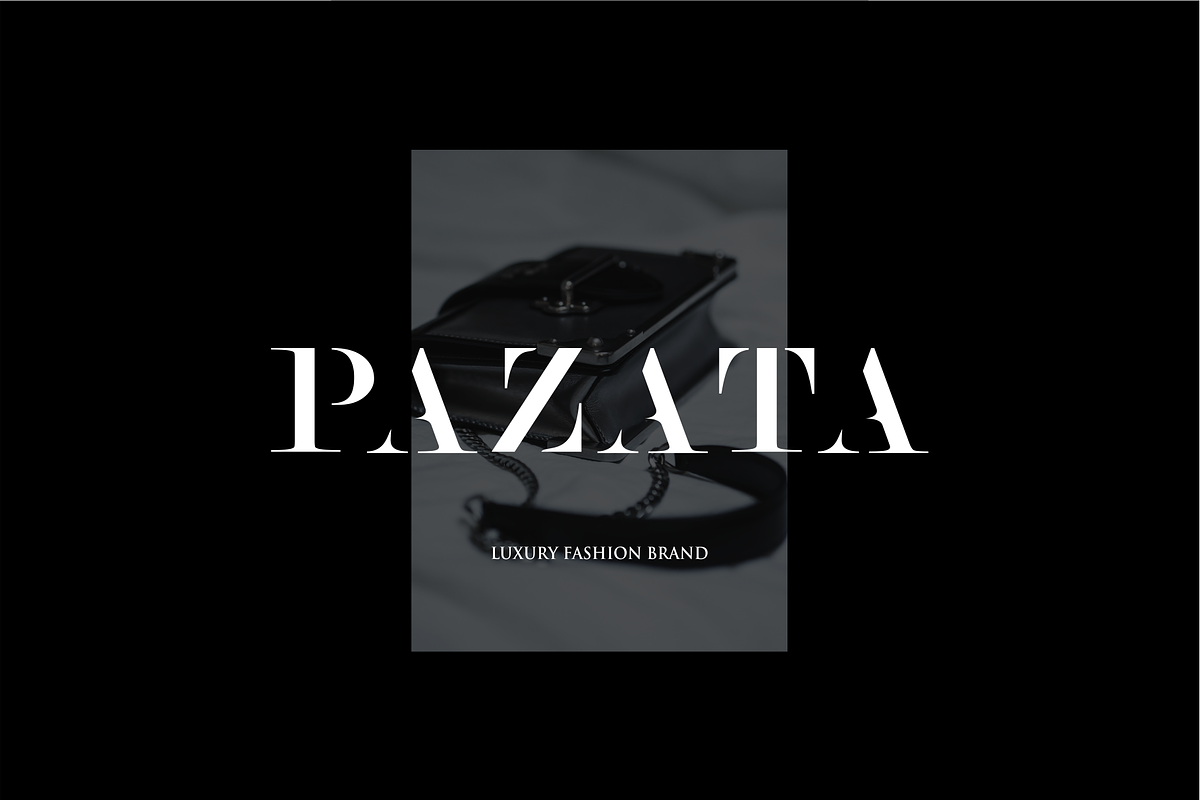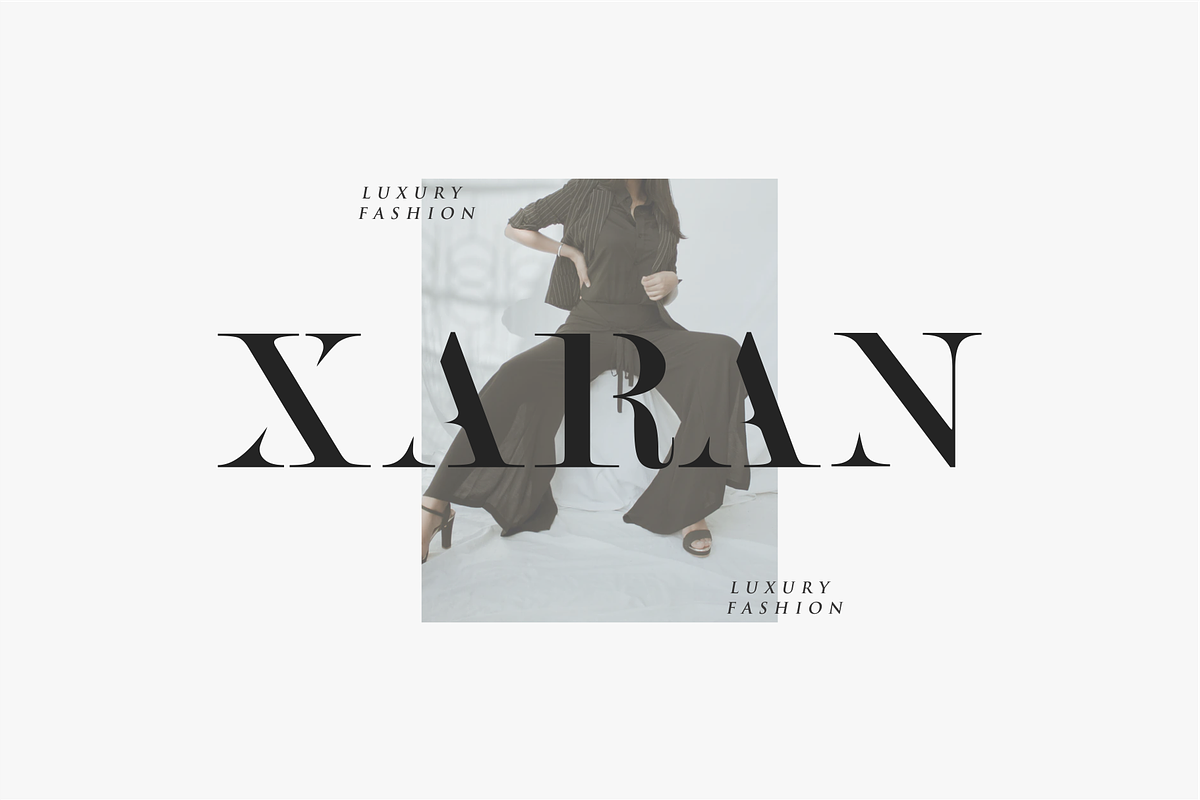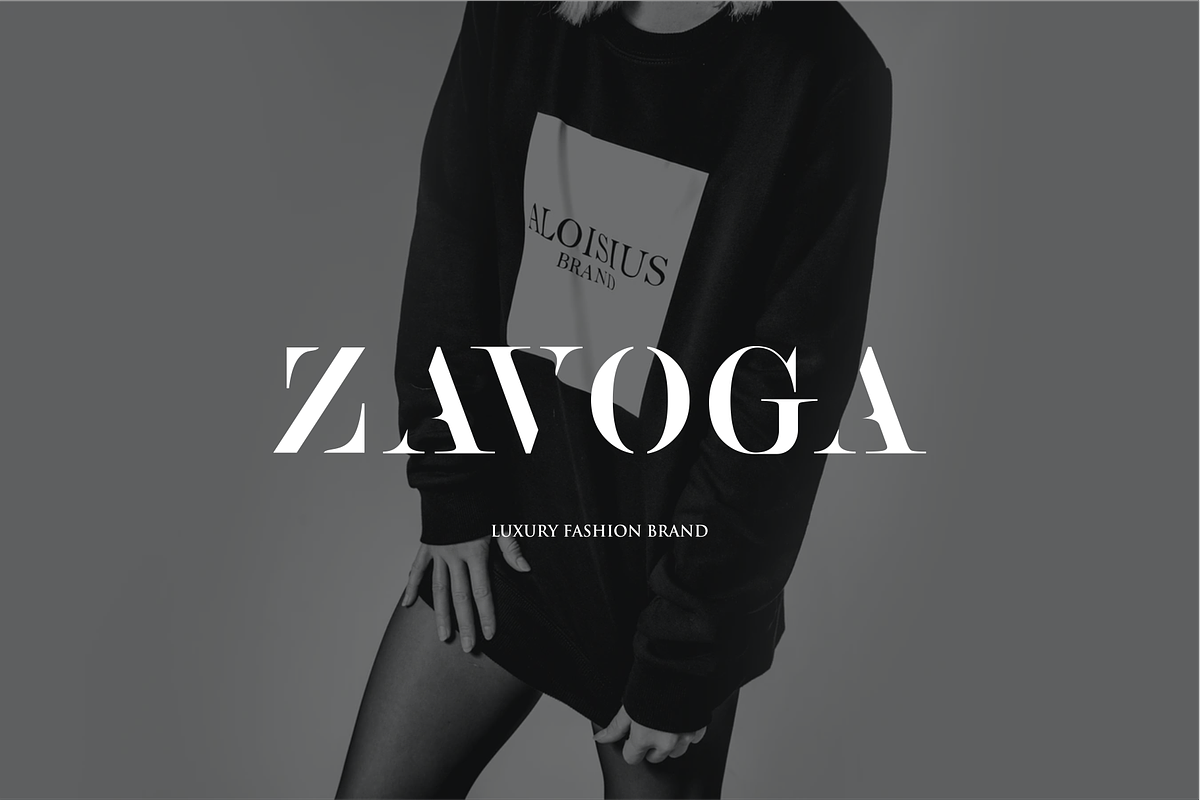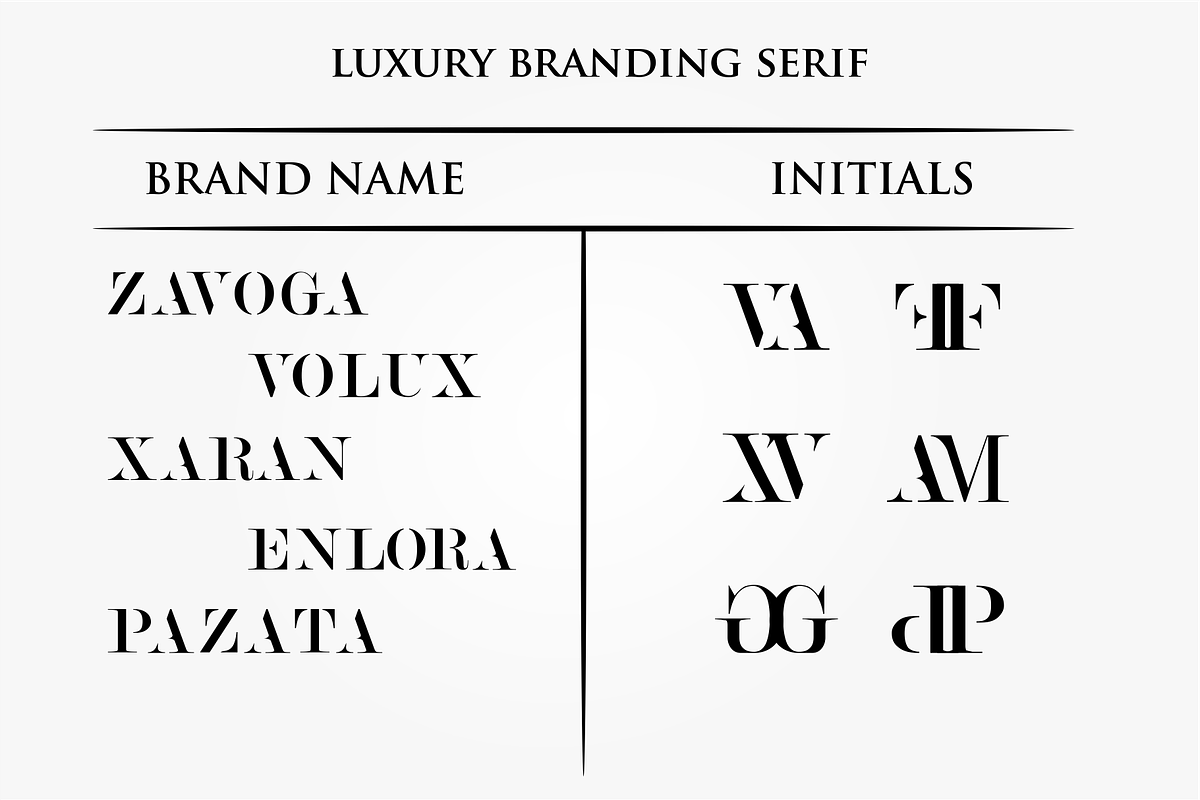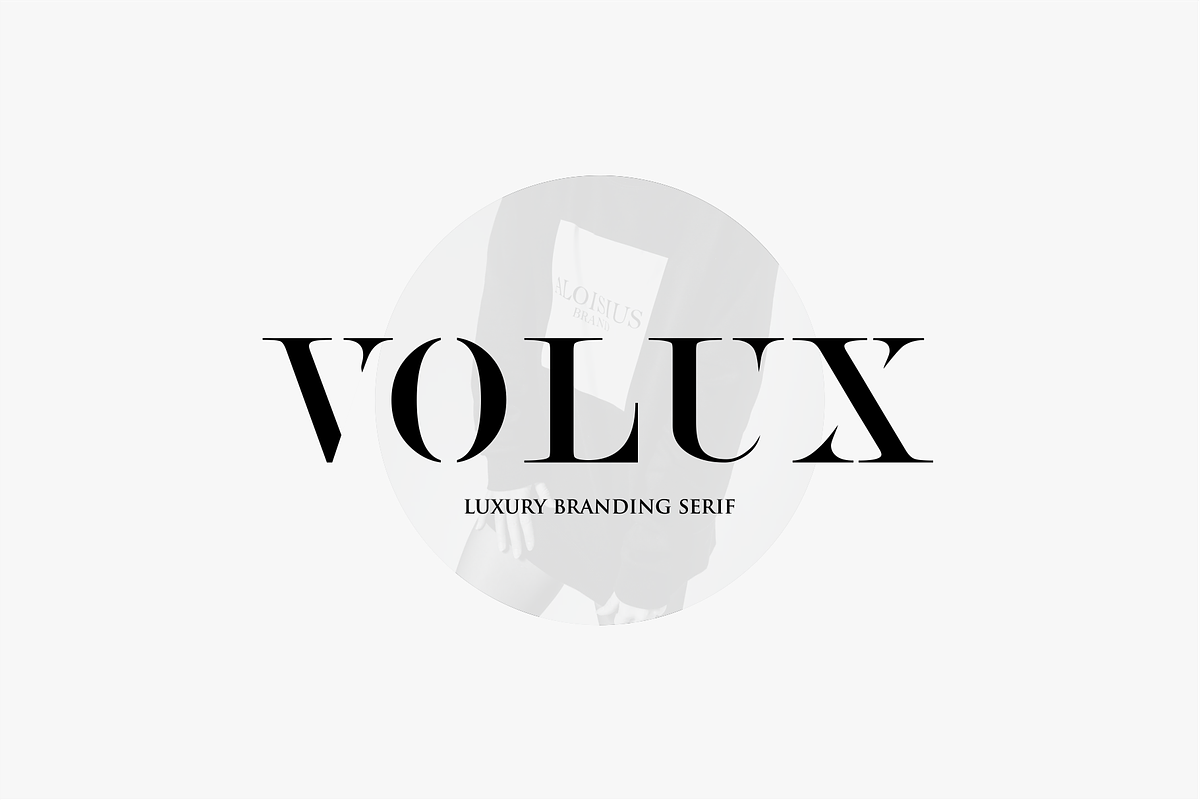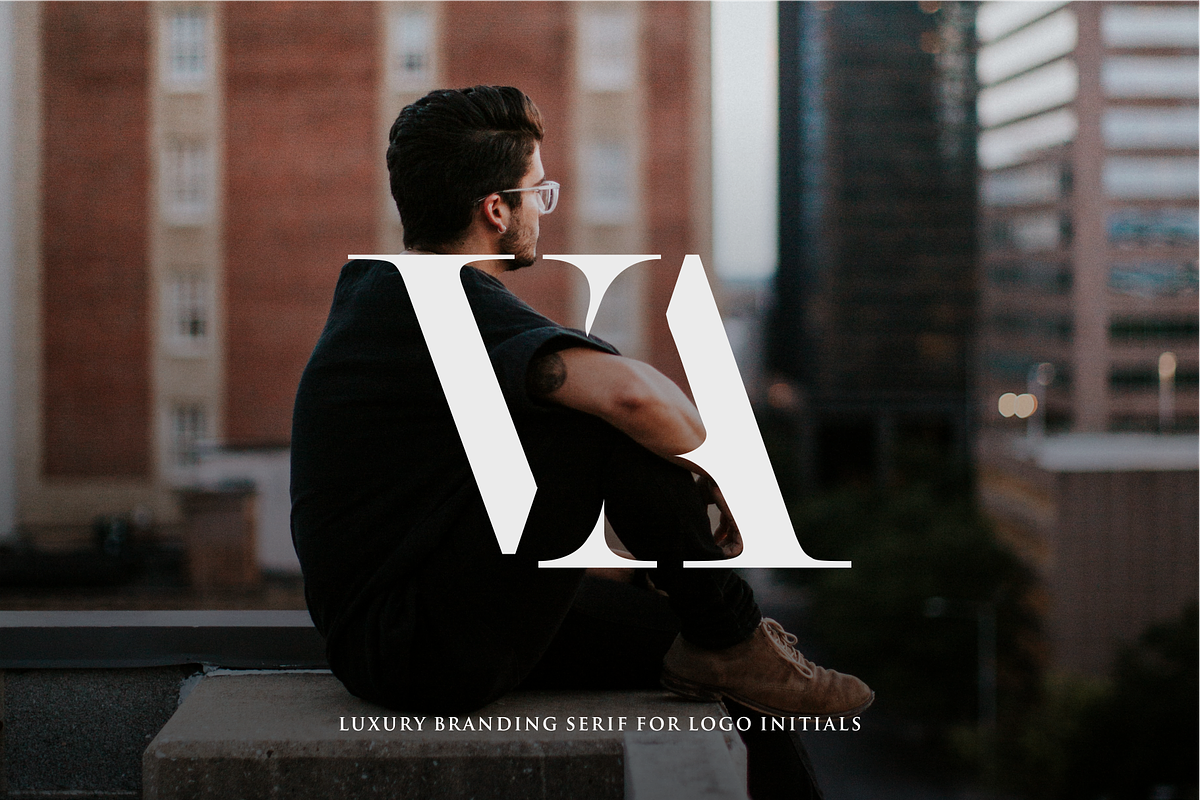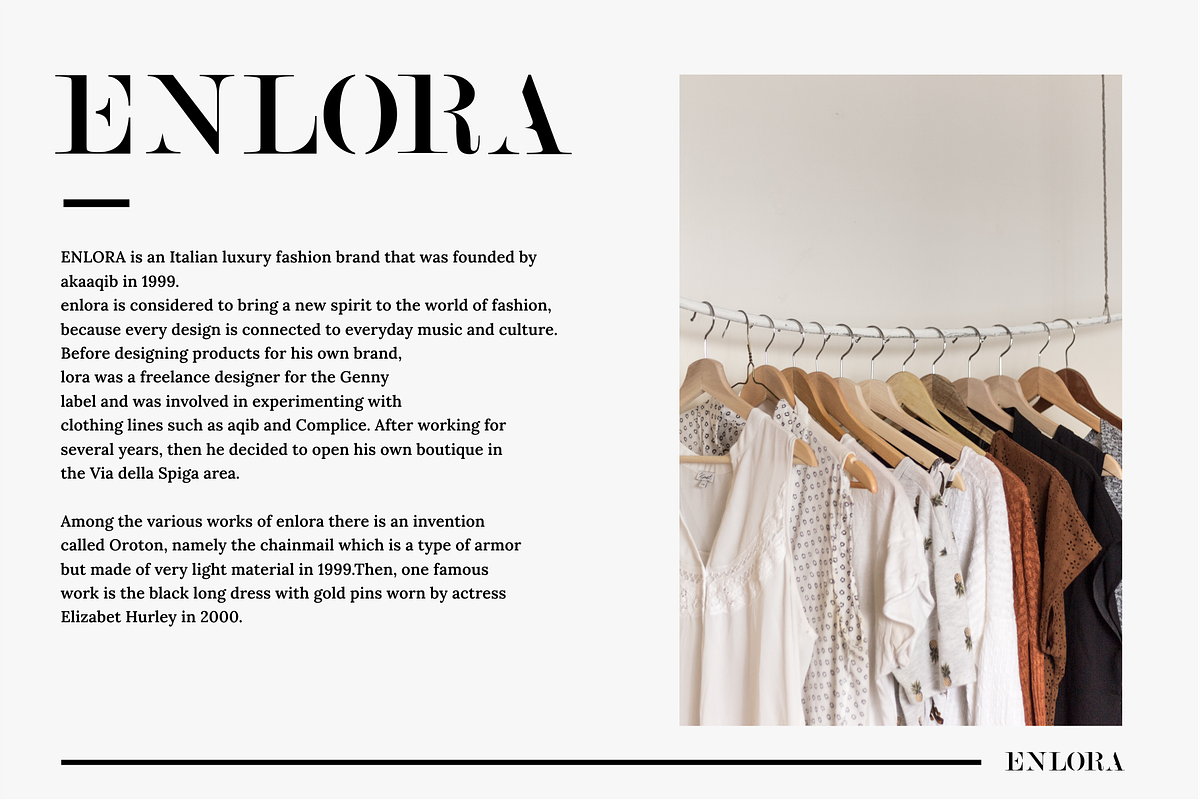
VOLUX - Luxury Branding
Introducing VOLUX LUXURY BRANDING FONT
I made this font to help those of you who have a unique and minimalist luxury fashion business. you don't bother anymore to make your branding and make your brand luxurious.
You can also make the initials of your company name with this volux font. and make magazine titles. I took a minimalist, simple, luxurious and expensive theme. if you are part of our font you can try it :)